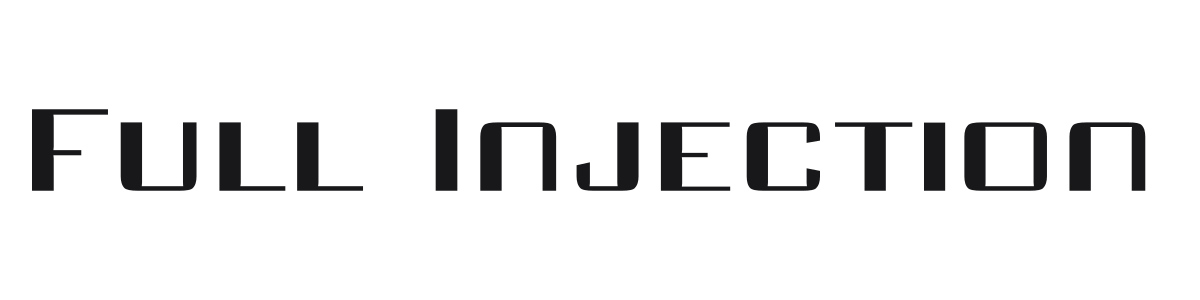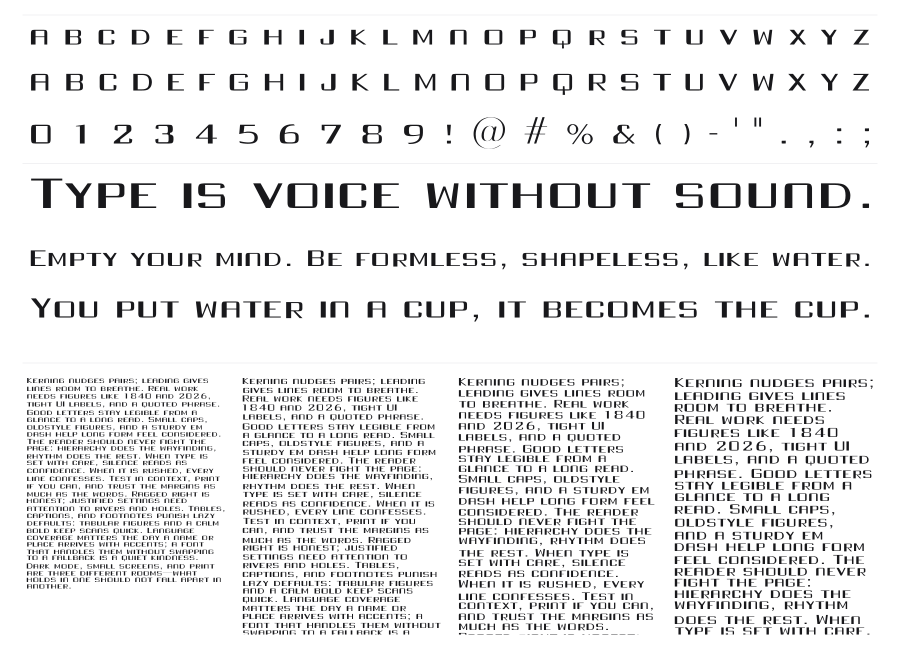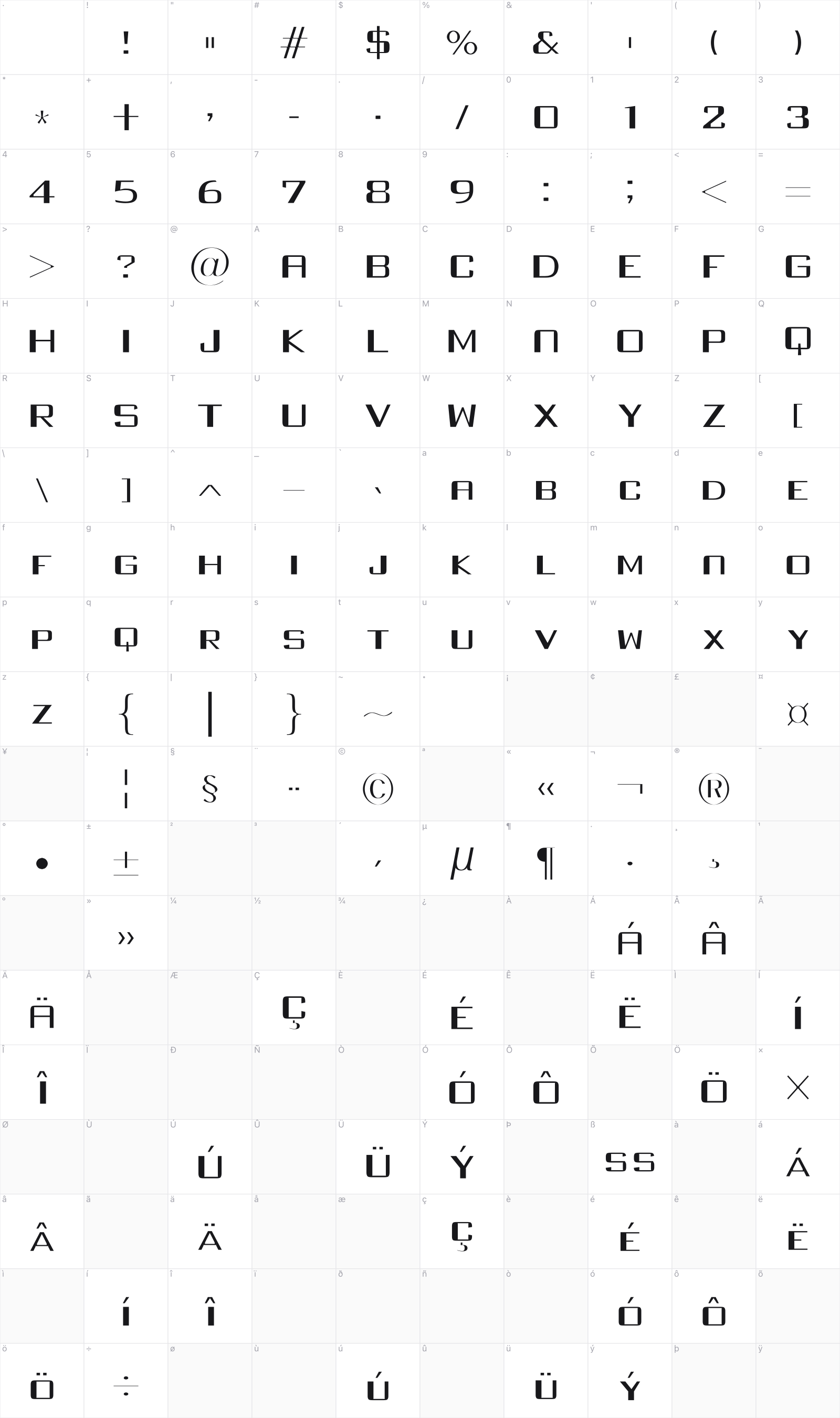
Full Injection
Full Injection is a wide, square geometric sans built on a strict rectilinear grid with flat-cut terminals and no stroke contrast. The construction feels deliberately engineered, somewhere between industrial stencil and sci-fi interface lettering. It carries weight and authority at large sizes.